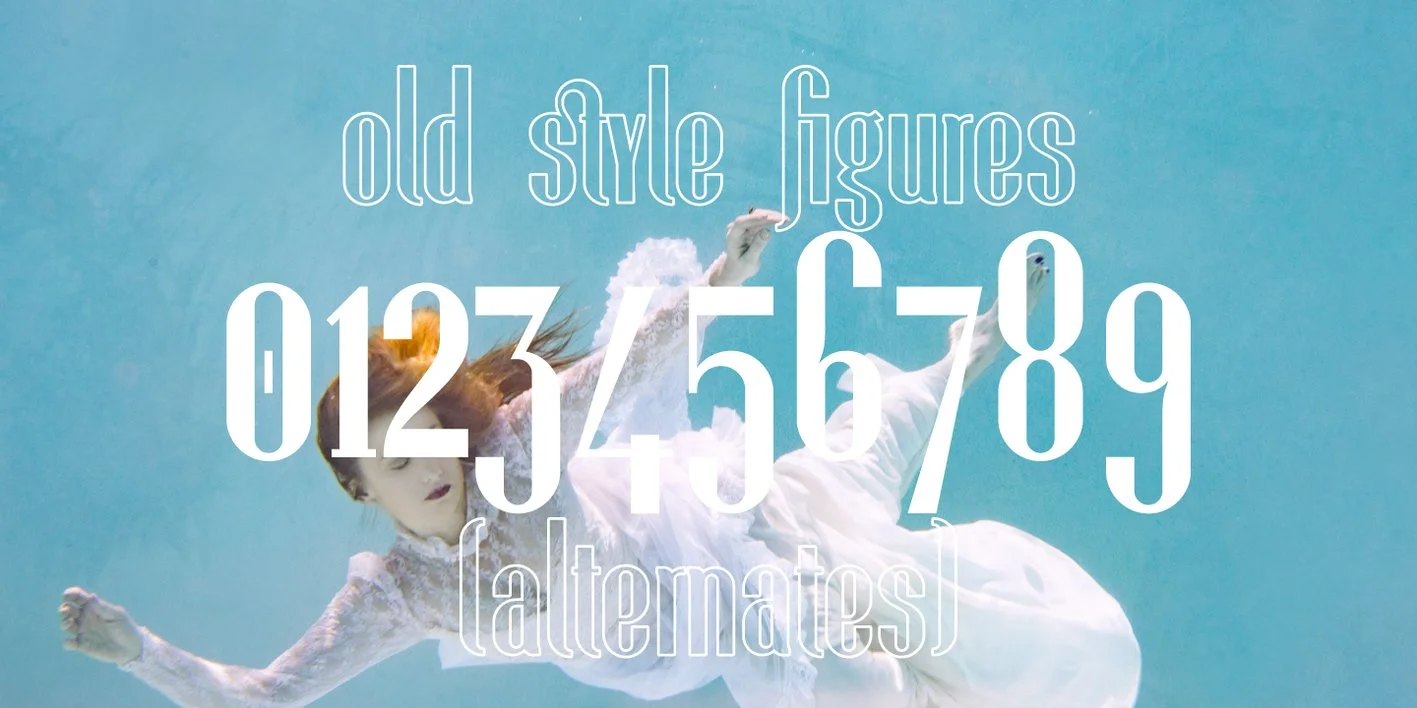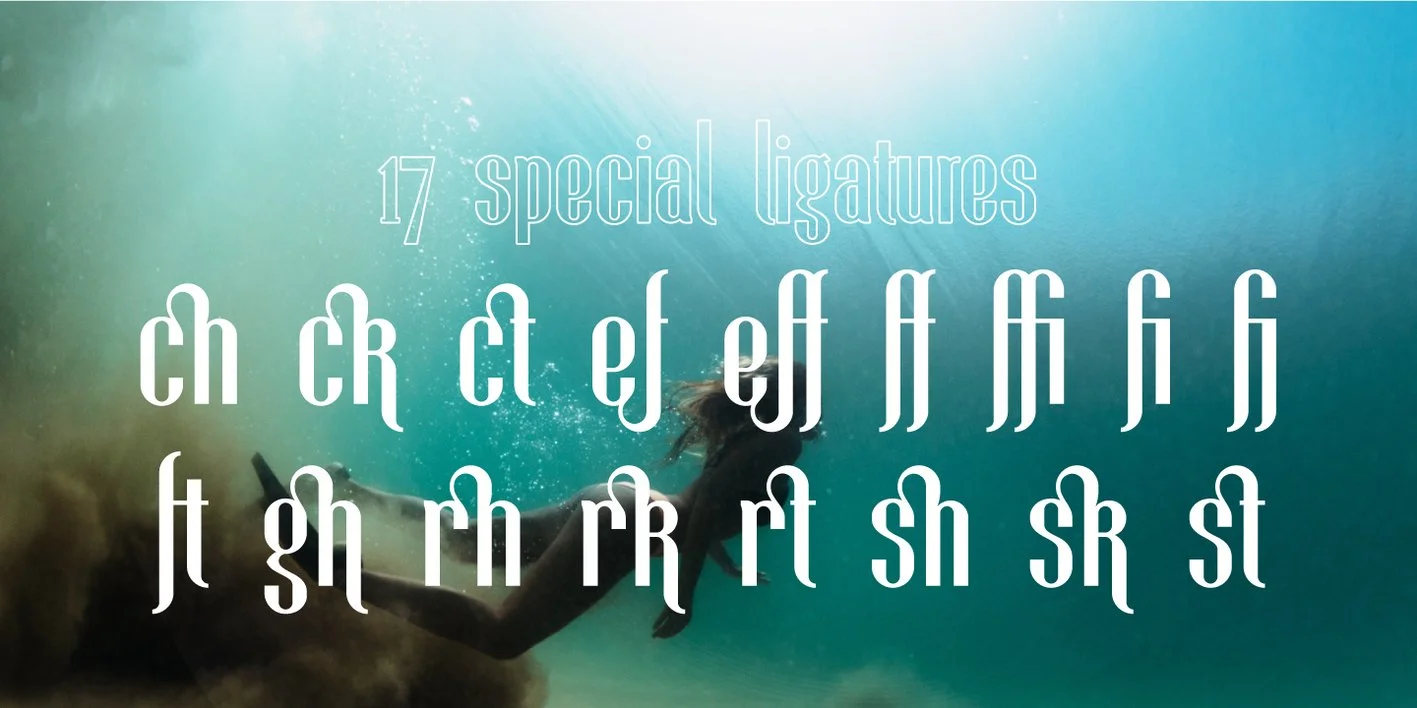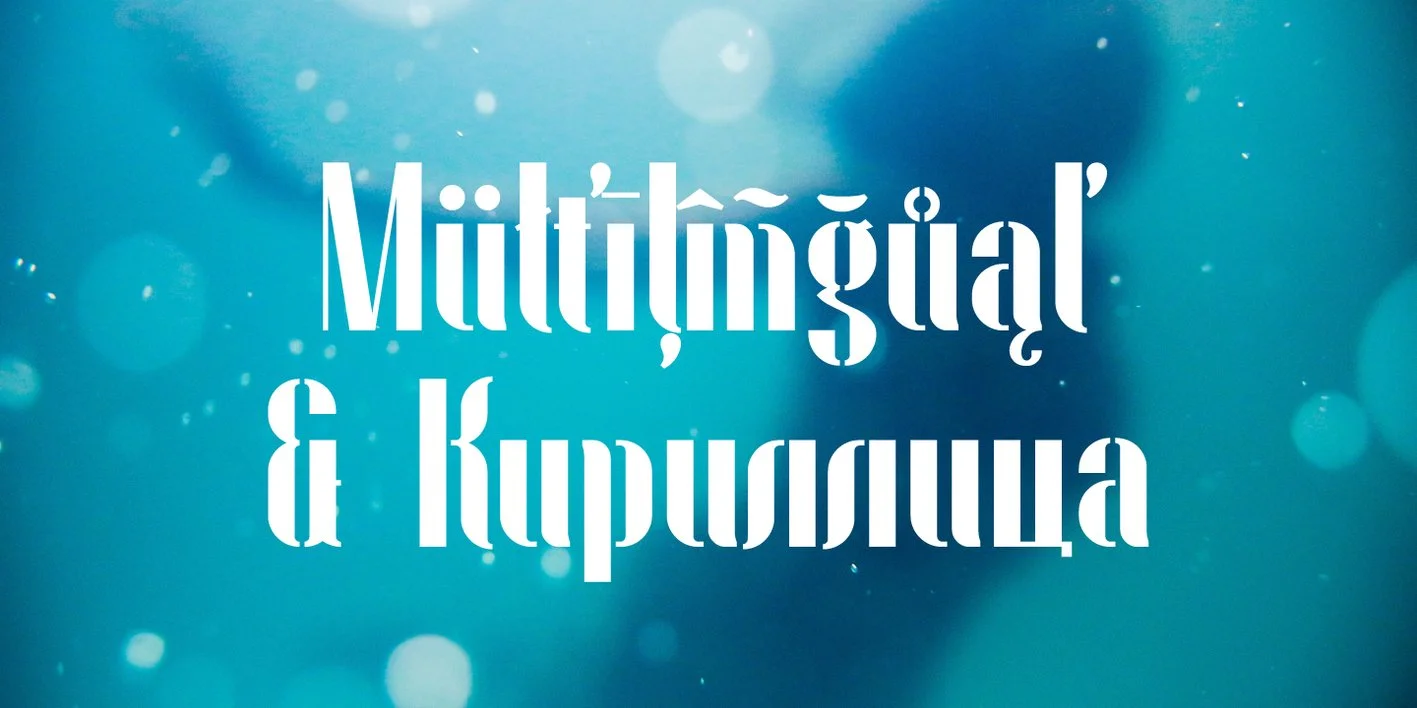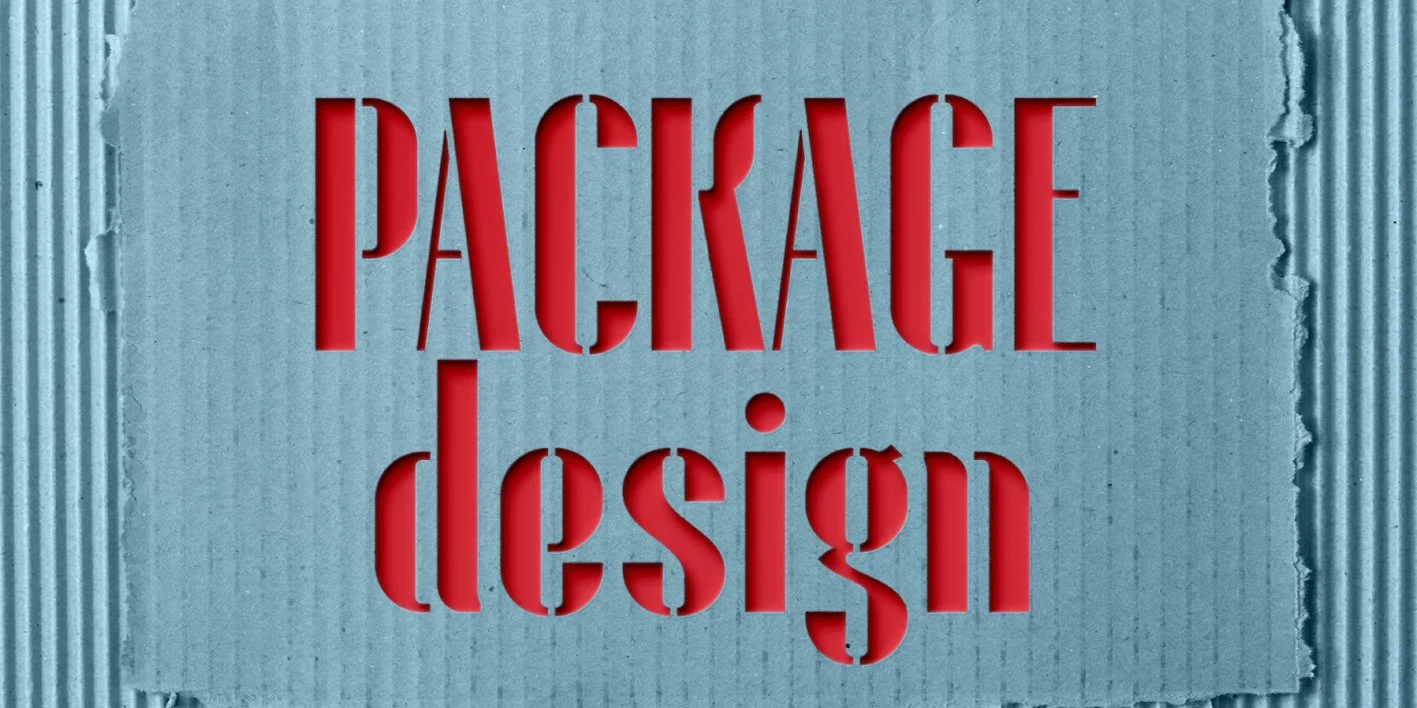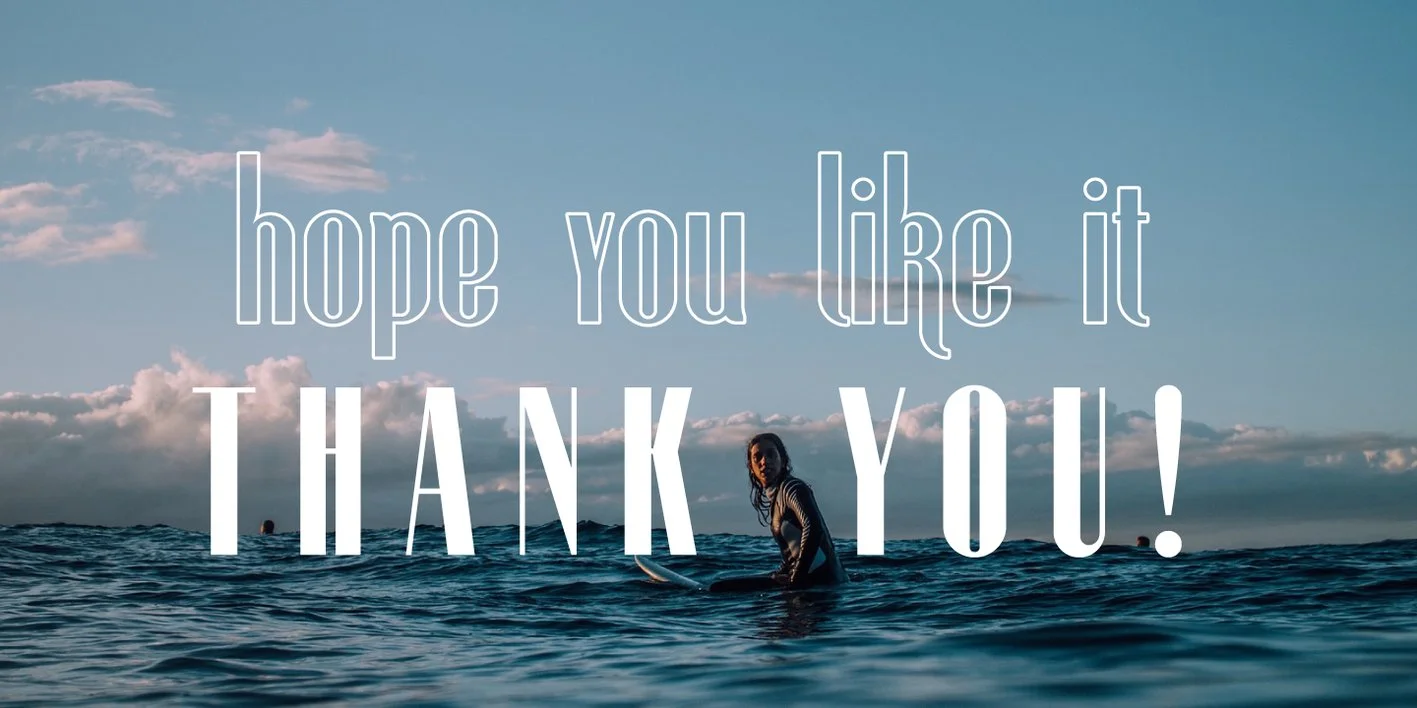
Fontuna Font
Few typefaces manage to balance consistent type colour across continuous text with genuine day-to-day practicality. Fontuna is one of them. The typeface brings a versatile sensibility to a broad range of creative disciplines, with optical balance across all weights that holds up whether the work is print-first or screen-first.
In practice, Fontuna proves particularly effective for poster creation, packaging design, logo design, social media graphics, product labels. Designers reaching for it report that the type decisions feel resolved rather than laboured — a useful quality when client timelines are tight and creative bandwidth is limited.
The range of applications extends to advertising campaigns, web design, signage systems, brand identity systems. That breadth is not accidental: the proportions and spacing were tested across a range of mock briefs before the typeface was finalised, ensuring the design holds together in contexts beyond the obvious ones.
Independent studios handling packaging and editorial work find Fontuna a reliable workhorse for projects where the brief demands both personality and restraint. The typeface avoids the self-conscious quirkiness that dates quickly, settling instead for the kind of considered distinctiveness that remains effective over a longer creative lifespan.